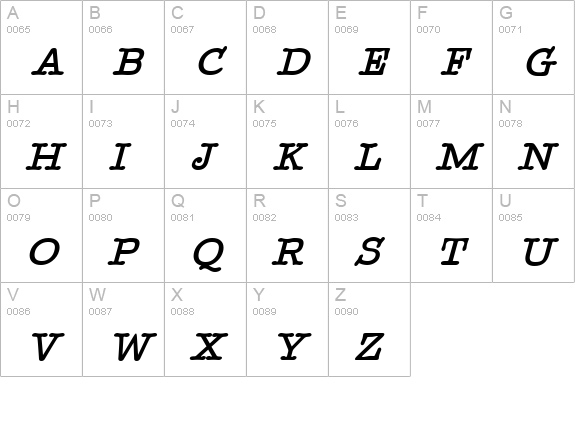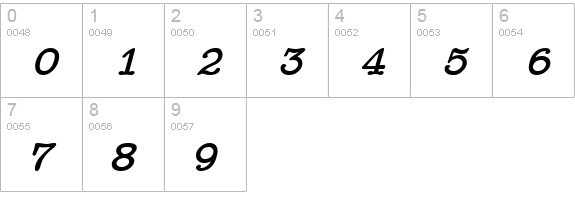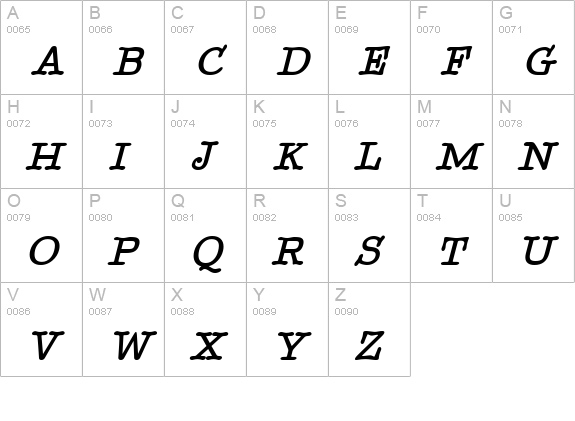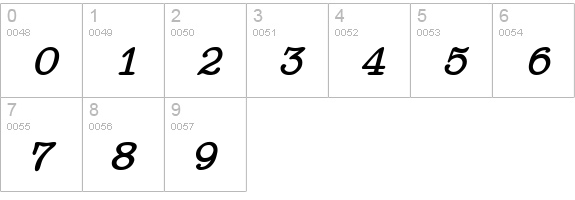
BetterTypeRight BoldItalic font is a stylish and modern typeface that exudes elegance and sophistication. Its bold and italic design creates a striking visual impact, making it perfect for adding emphasis and flair to any design project. The sleek lines and sharp angles of this font give it a contemporary edge, while maintaining a sense of professionalism and class. This versatile font is ideal for a wide range of applications, from branding and advertising to editorial design and web graphics. Whether you're creating a logo, poster, website, or social media post, BetterTypeRight BoldItalic font will help you make a bold statement and stand out from the crowd. And the best part? BetterTypeRight BoldItalic font is available for free download at FontsMarket.com. So you can easily access this high-quality font and elevate your designs without breaking the bank. Don't miss out on this opportunity to enhance your creative projects with the stunning BetterTypeRight BoldItalic font today!